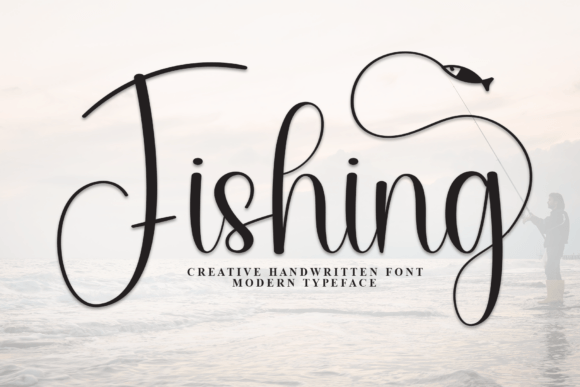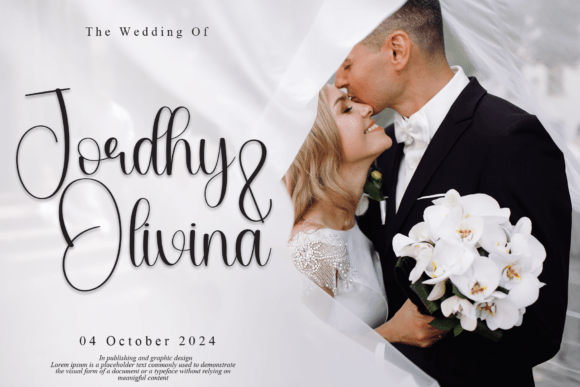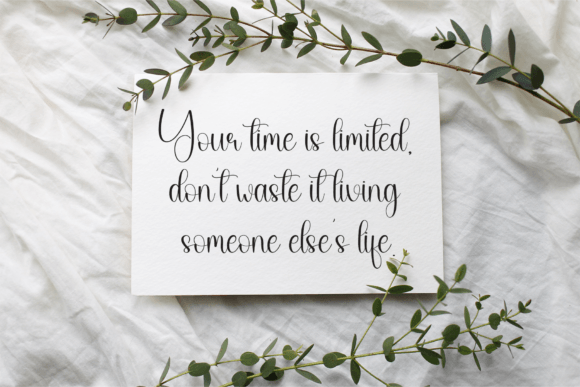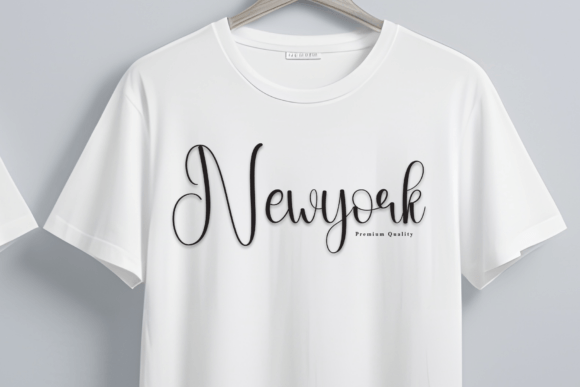
Fishing Font: A Flowing Handwritten Script for Wedding Design
About the Fishing Font
Make a bold statement with Fishing Font, a powerful and memorable font. Fishing Font is a playful, handwritten typeface that captures the casual, relaxed vibe of a day spent by the water. Its letters have a friendly, flowing style, making it perfect for invitations, signs, or anything related to fishing and outdoor fun. The font looks like it was written with a marker, giving it a personal touch and a warm, inviting feel.
Fishing Font’s casual style makes it ideal for projects needing a friendly, approachable feel. It works exceptionally well in headlines, short text blocks on posters or signage, and branding for businesses related to leisure, recreation, or the outdoors. Avoid using it for body text or lengthy paragraphs; its informal nature would hinder readability.
Consider pairing Fishing Font with a clean sans-serif like Open Sans for a balanced contrast, or a more structured serif like Merriweather for a touch of elegance. For a bolder statement, a geometric sans-serif such as Futura could work well, depending on the overall design aesthetic.
The font’s core personality is undeniably playful and relaxed, embodying a sense of carefree fun. This makes it a strong choice for brands that aim for a lighthearted, approachable image.
Fishing Font Usage Examples
Fishing Font Example